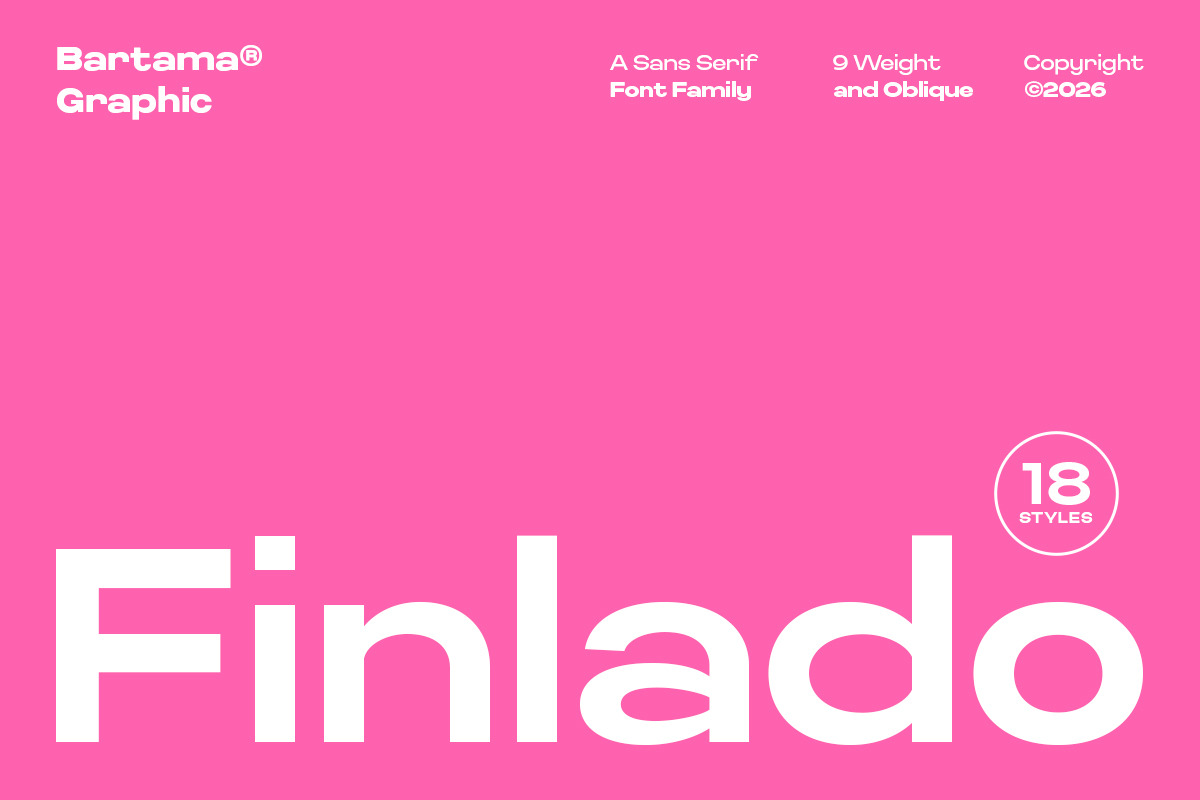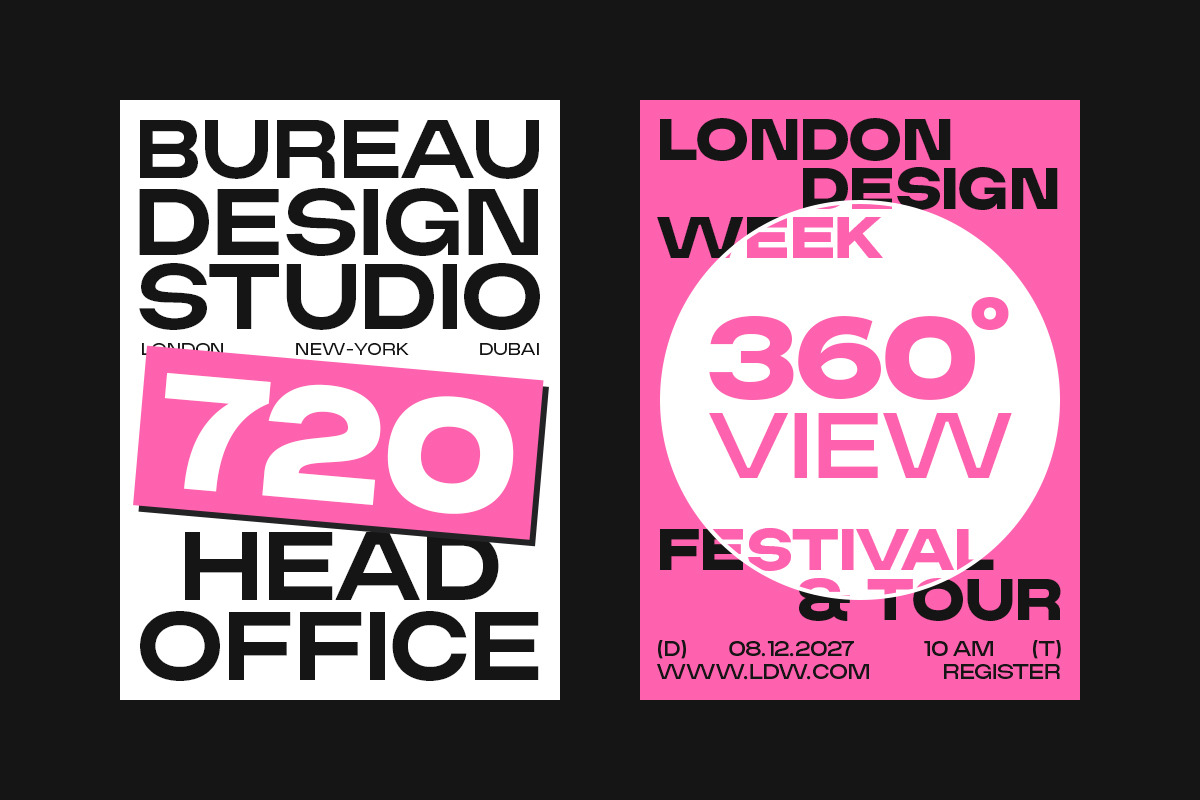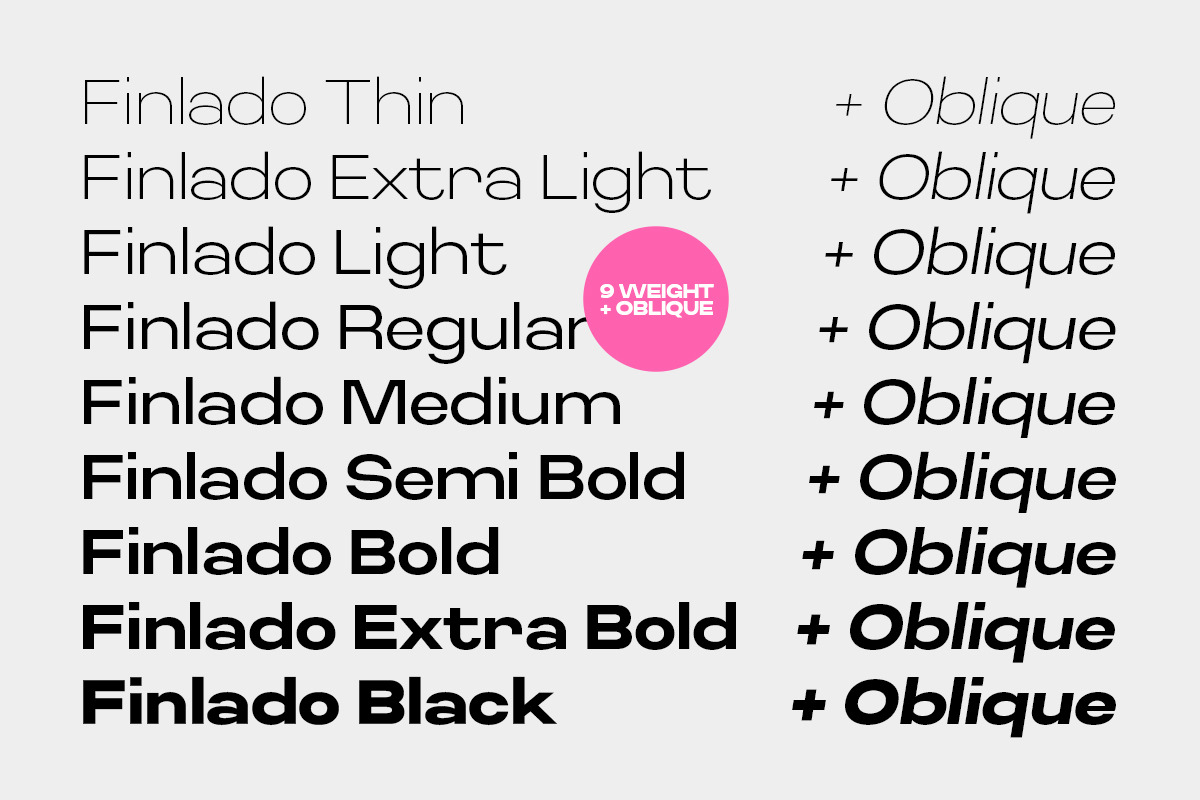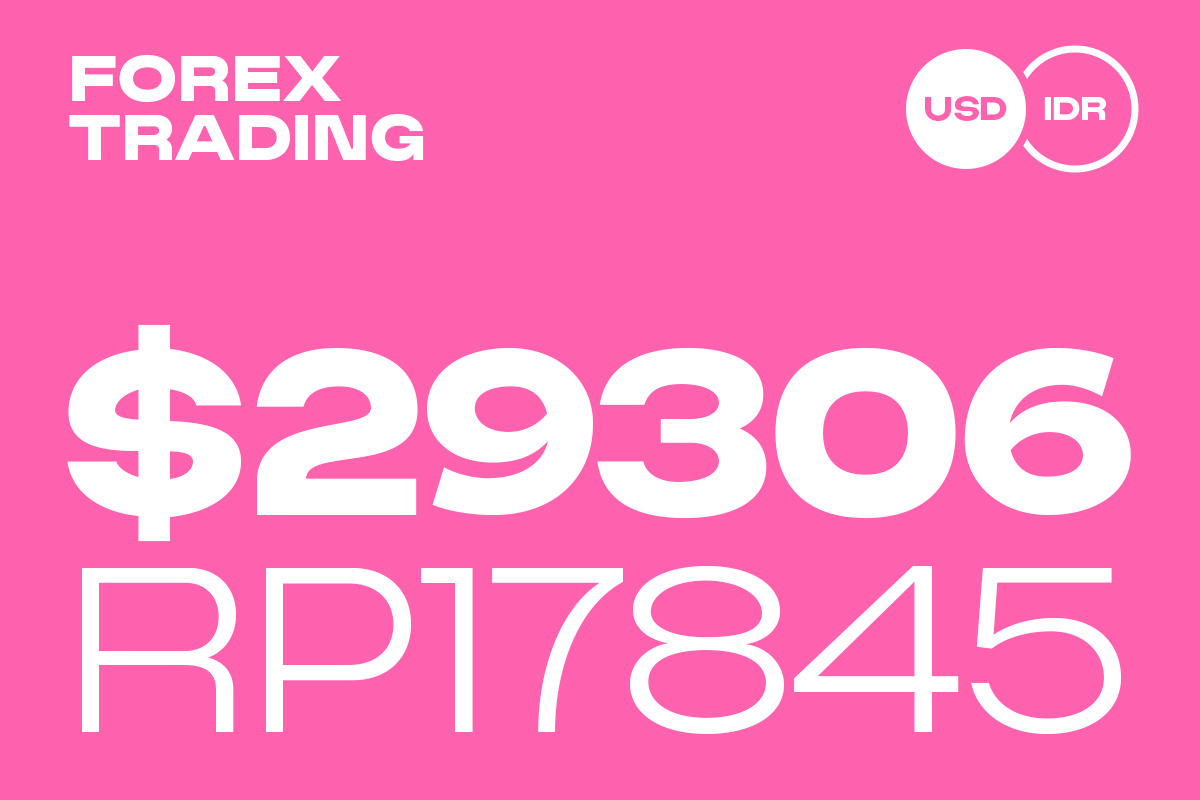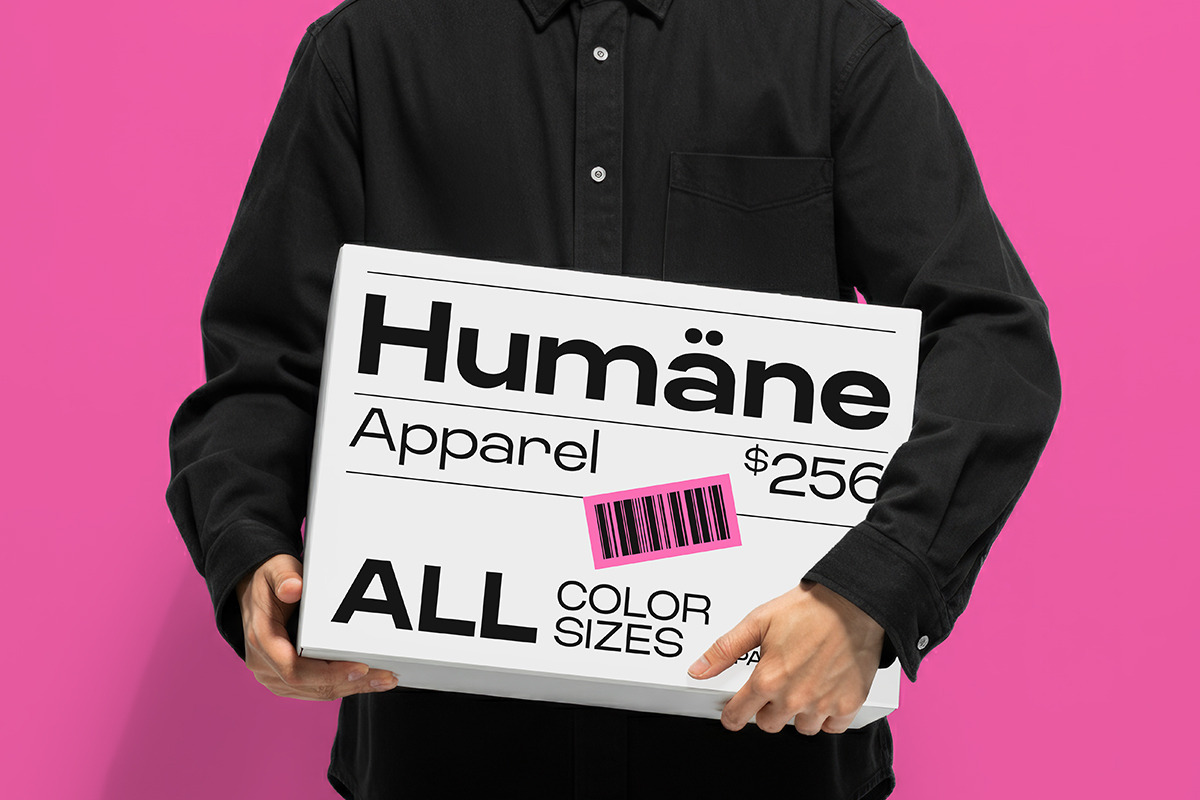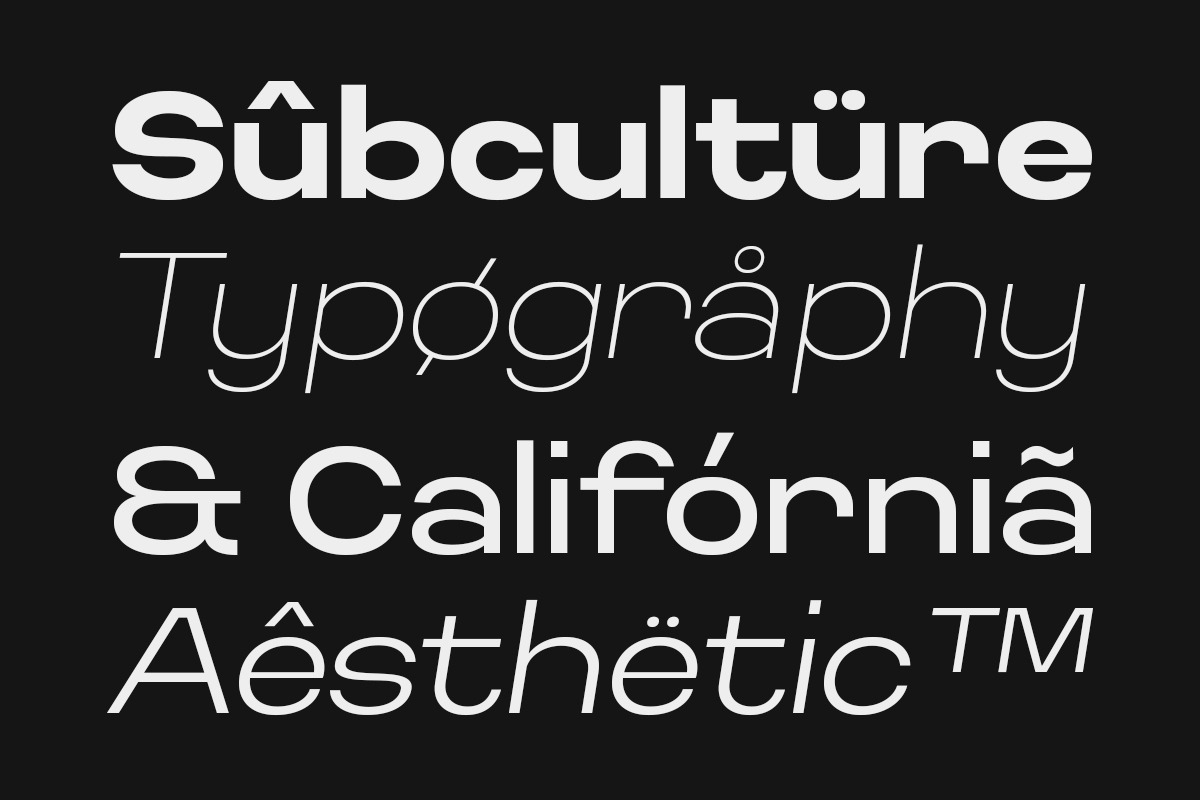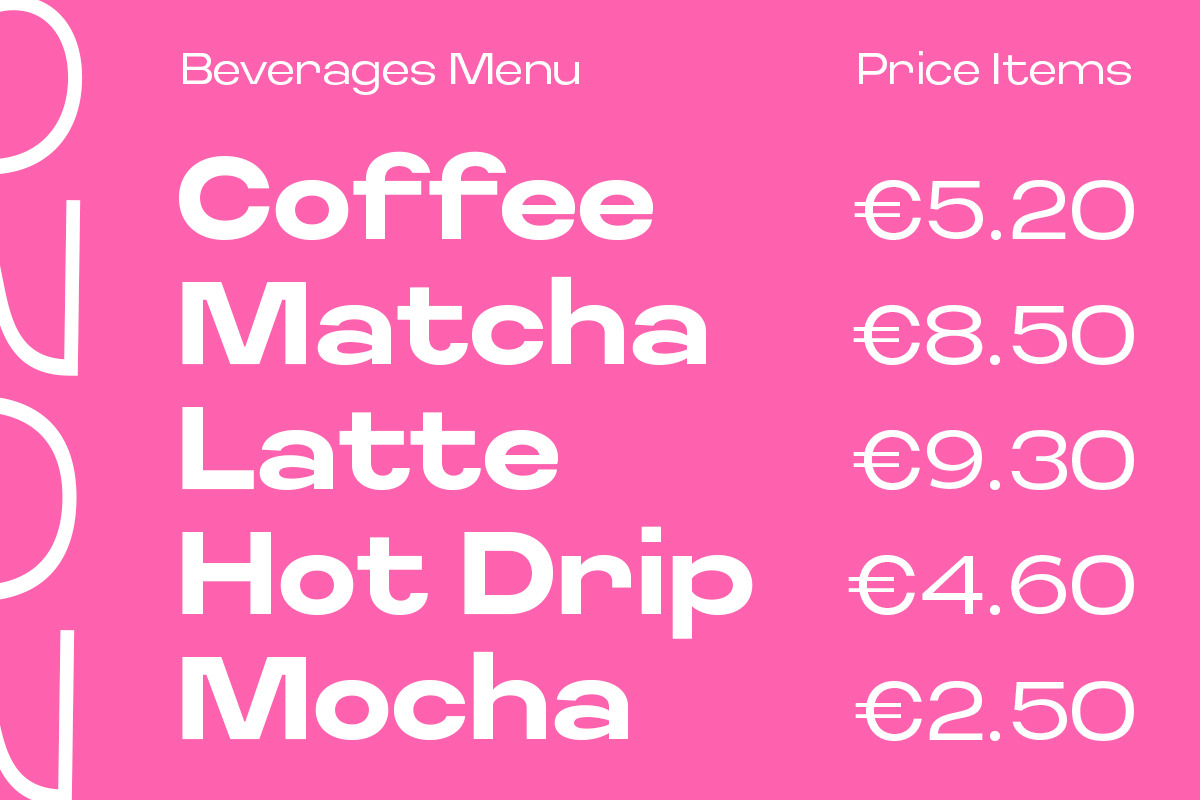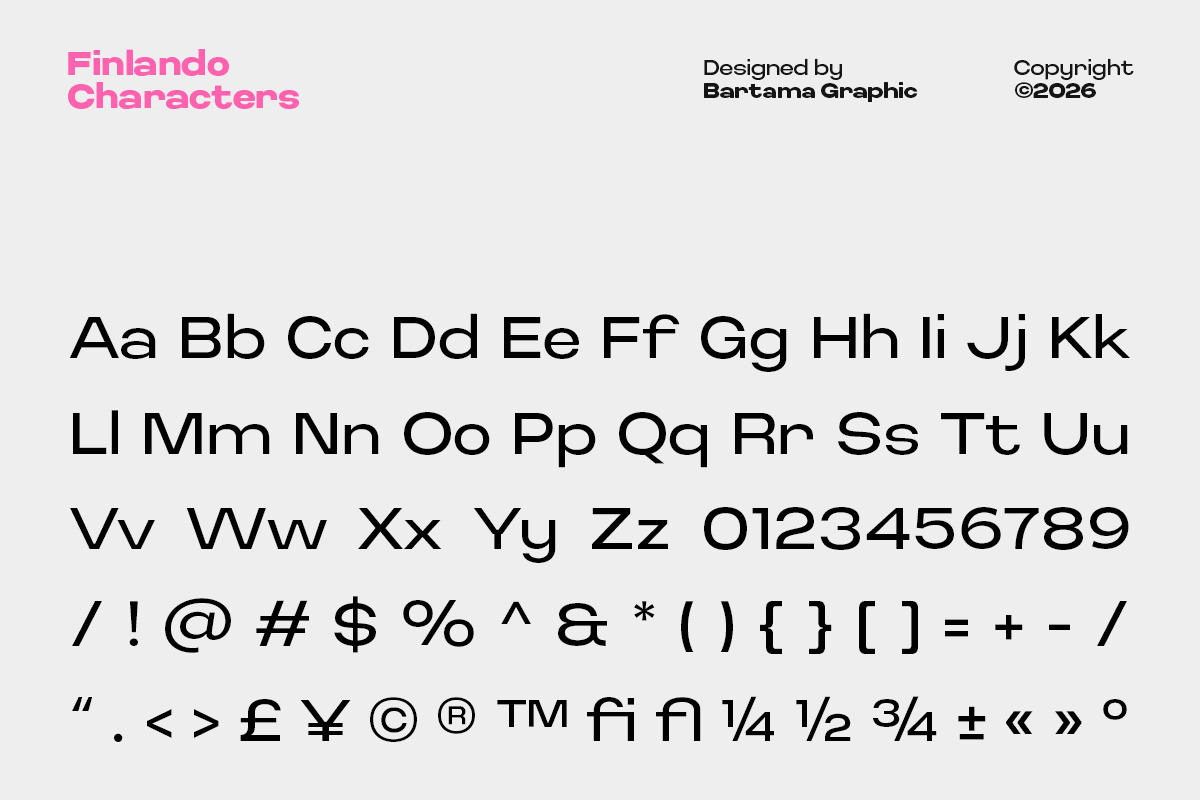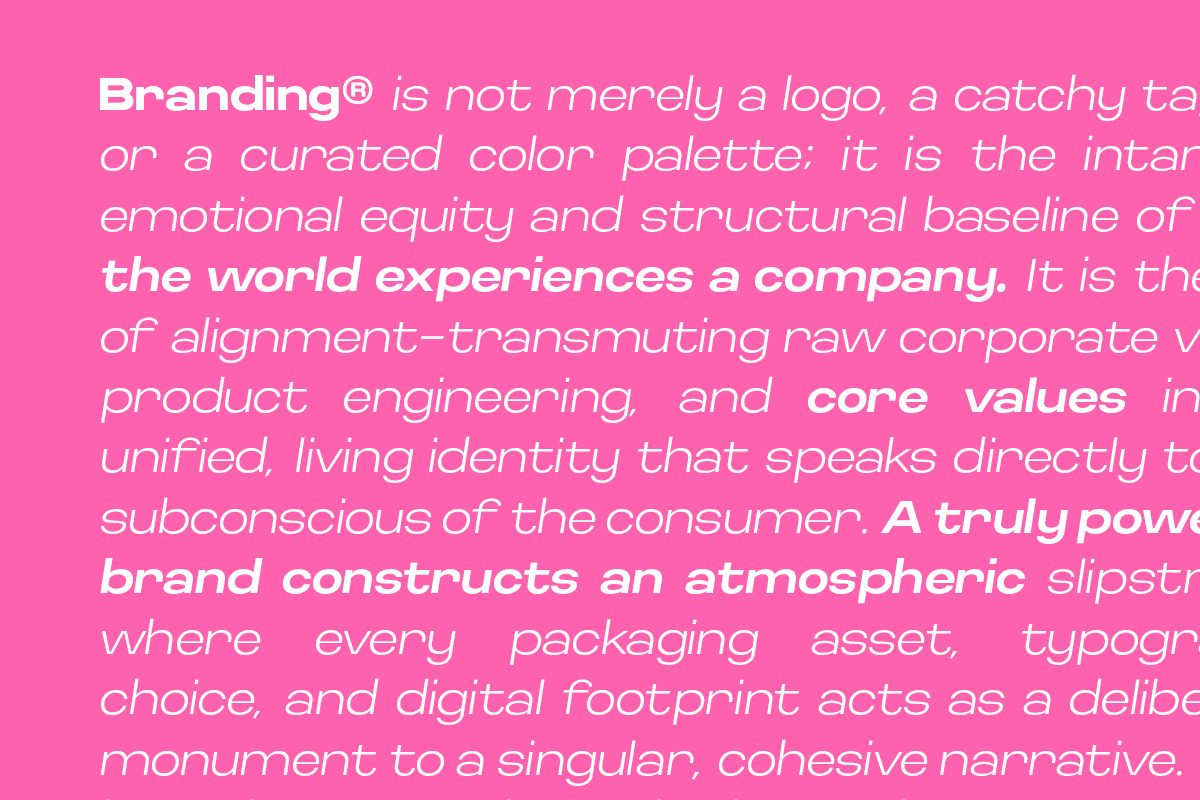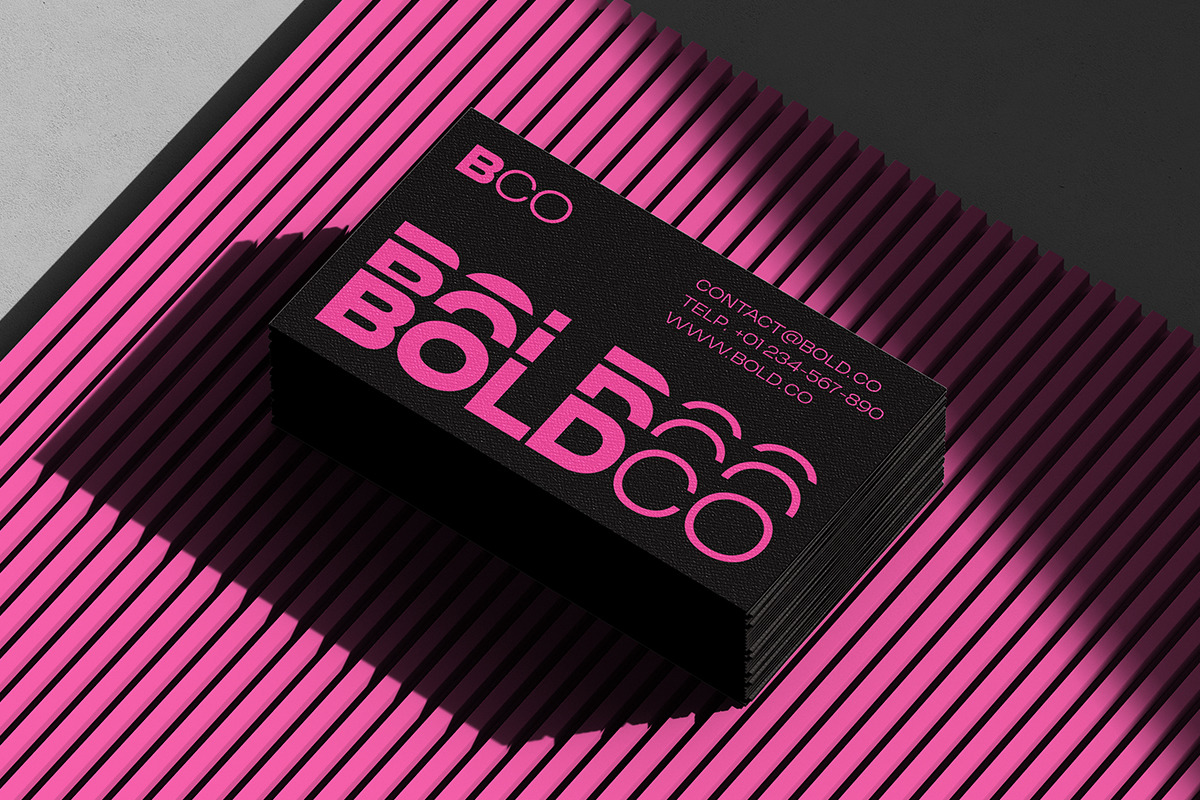
Finlado - Sans Serif Font Family
Finlado – Sans Serif Font Family
Finlado is a modern sans serif typeface crafted with clean geometry, balanced proportions, and a refined contemporary aesthetic. Designed to communicate with clarity and confidence, it delivers a professional yet approachable appearance that works effortlessly across a wide range of creative projects.
Its minimalist structure creates a strong visual presence while maintaining excellent readability, making it suitable for branding, editorial design, packaging, advertising, digital products, and modern visual communication.
The family includes 18 styles, ranging from Thin to Black with matching Oblique versions, giving designers the flexibility to build clear typographic hierarchy and expressive layouts with consistency and style.
18 Font Styles (9 Weights + Oblique Styles)
Essential Symbols & Punctuation
Included Styles
Thin
Thin Oblique
Extra Light
Extra Light Oblique
Light
Light Oblique
Regular Oblique
Medium
Medium Oblique
Semi Bold
Semi Bold Oblique
Bold
Bold Oblique
Extra Bold
Extra Bold Oblique
Black
Black Oblique